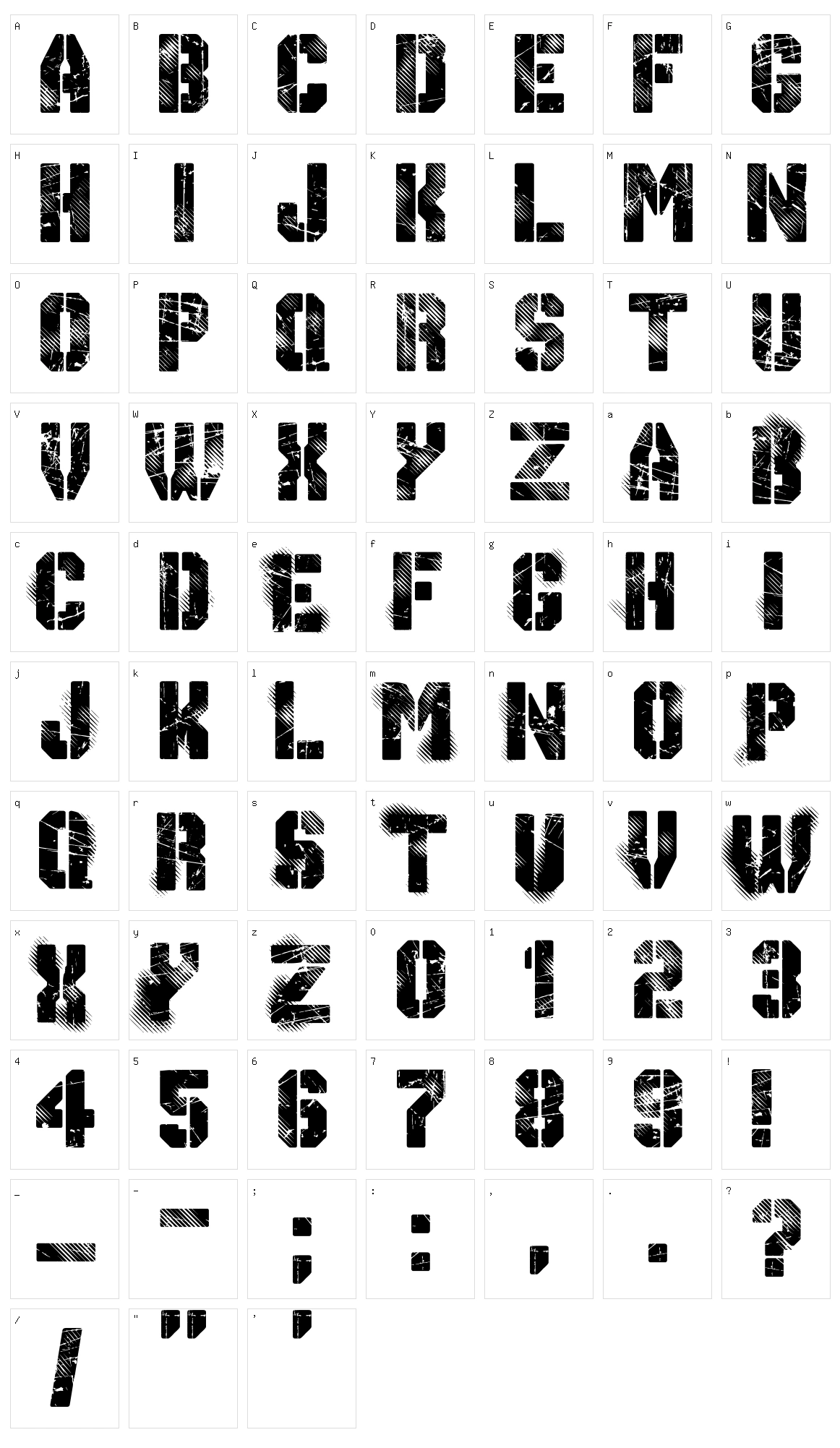
The free font Gimme Danger is carefully designed by imagex, showcasing a thoughtful balance of creativity and usability and falls under the Stencil font style. When you download the ZIP file, it contains only 106.37 KB of font files, making it lightweight and quick to download. Please review the license details below to understand permitted usage and distribution rights. If license information is not available, we recommend using this font for personal projects only or contacting the author directly for commercial usage permissions.